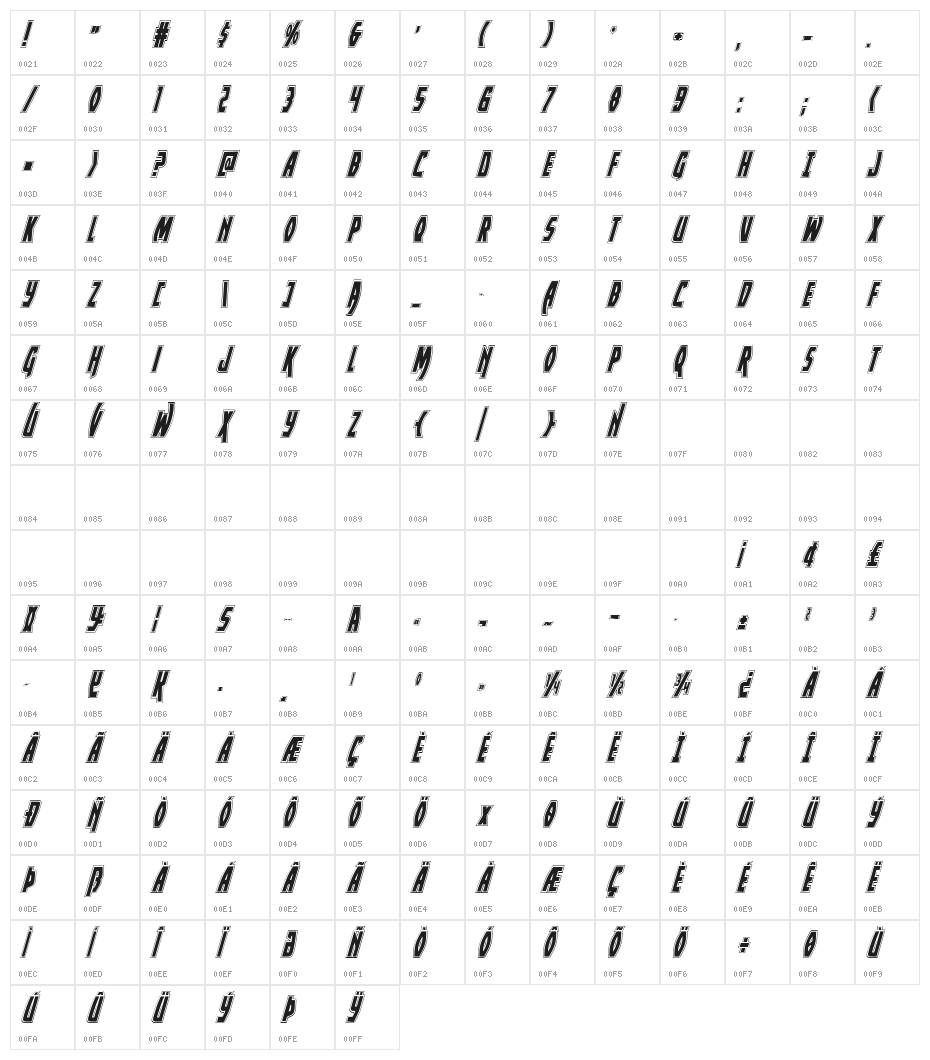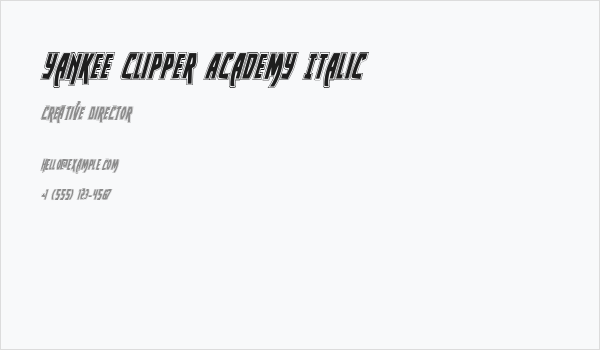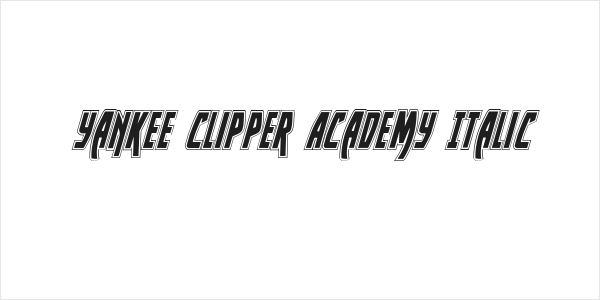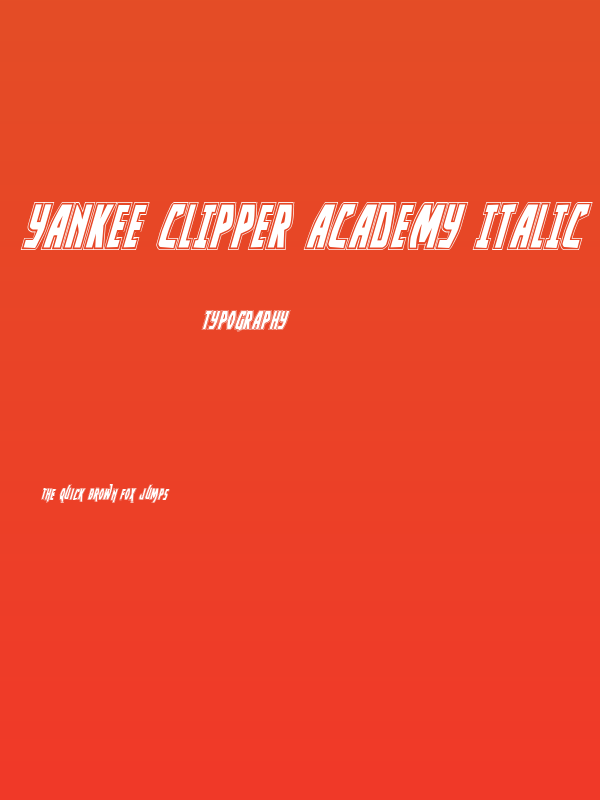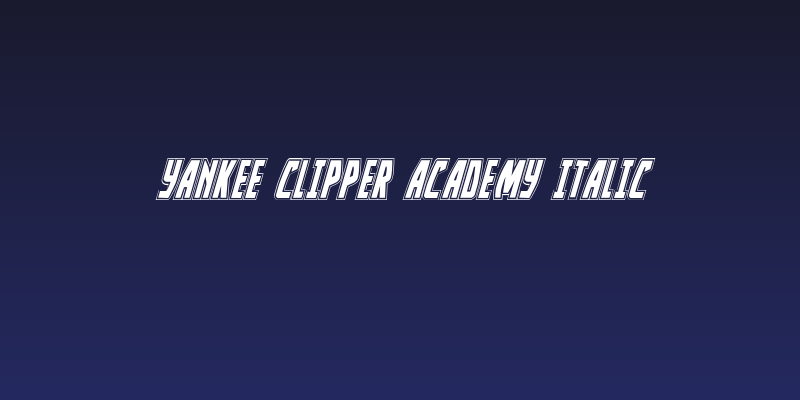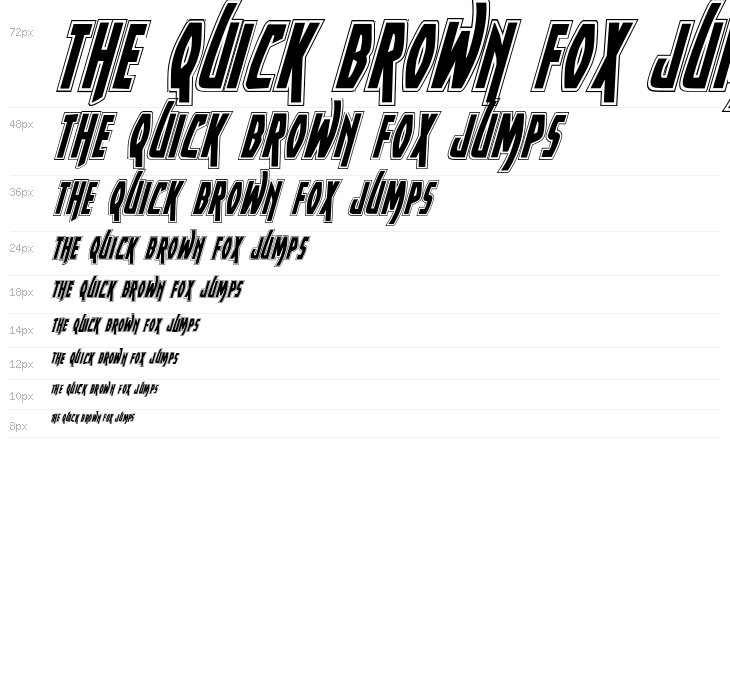
Yankee Clipper Academy Italic Font
Yankee Clipper Academy Italic Description
This font features a bold, italicized style with a strong presence. The characters are outlined, giving them a three-dimensional effect that adds depth and dynamism. The uppercase and lowercase letters are consistent in their slant and weight, creating a cohesive look. The numbers and special characters maintain the same bold and italicized characteristics, ensuring uniformity across all glyphs. The font's design is modern and eye-catching, making it suitable for projects that require a striking visual impact.